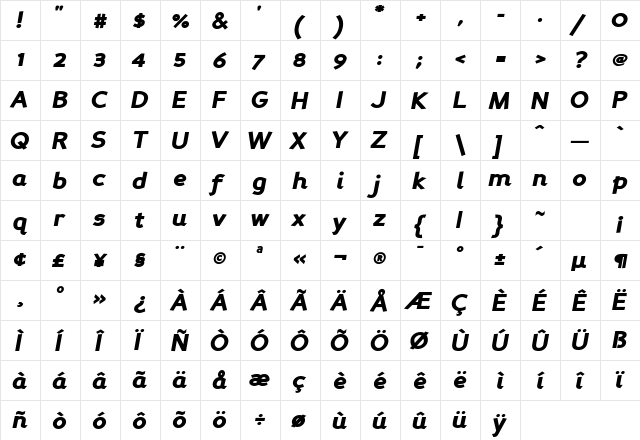
Perspective Sans Black Italic
Design Context for Perspective Sans Black Typeface
Perspective Sans Black takes a measured approach to typography — its balanced proportions and neutral character make it a reliable workhorse for both digital and print work. The slanted form adds forward momentum and visual energy.
Pro Tip: Use Perspective Sans Black for emphasis, pull quotes, and subheadings where its slanted energy can add rhythm to the layout.